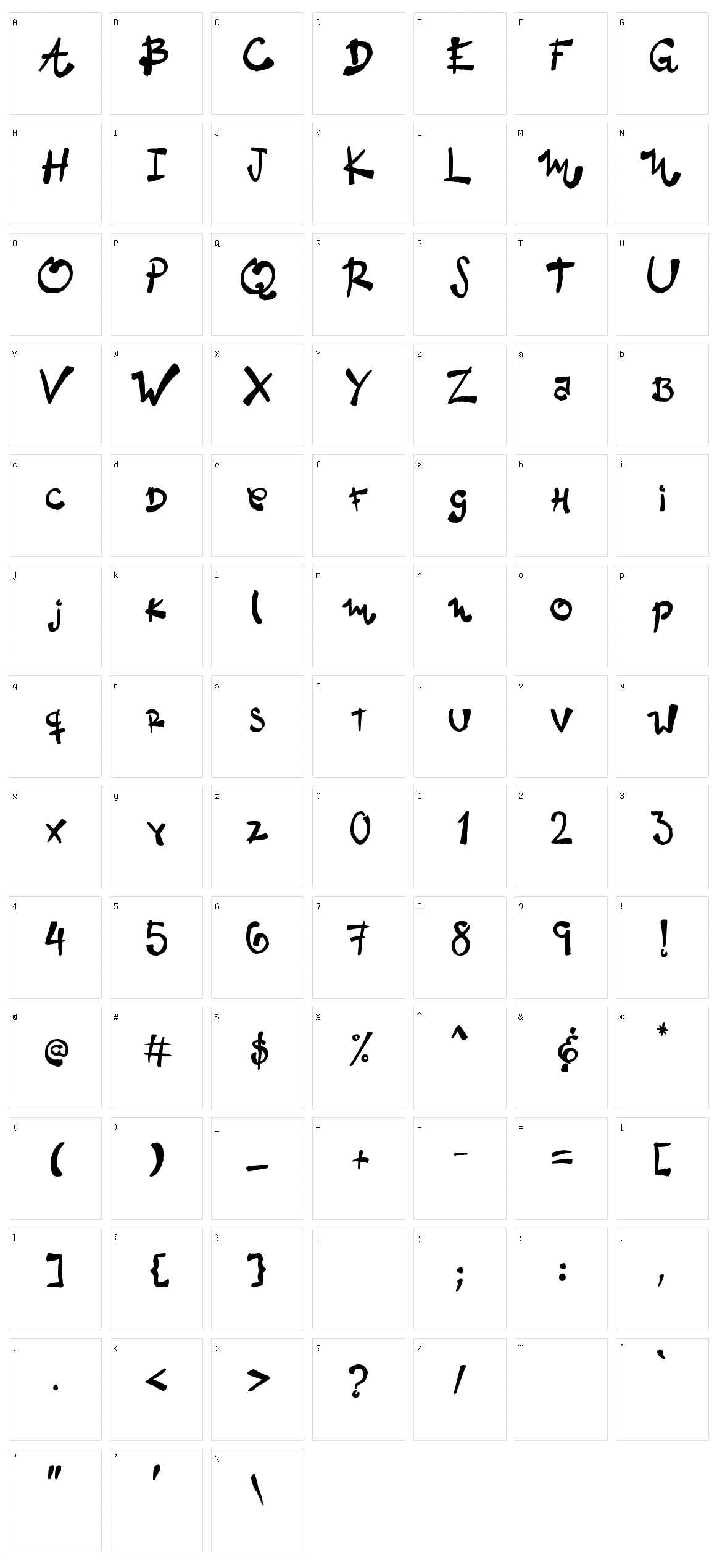
The free font Neto is carefully designed by Ernesto S?nchez Espinosa, showcasing a thoughtful balance of creativity and usability and falls under the Script font style. When you download the ZIP file, it contains only 19.4 KB of font files, making it lightweight and quick to download. Please review the license details below to understand permitted usage and distribution rights. If license information is not available, we recommend using this font for personal projects only or contacting the author directly for commercial usage permissions.